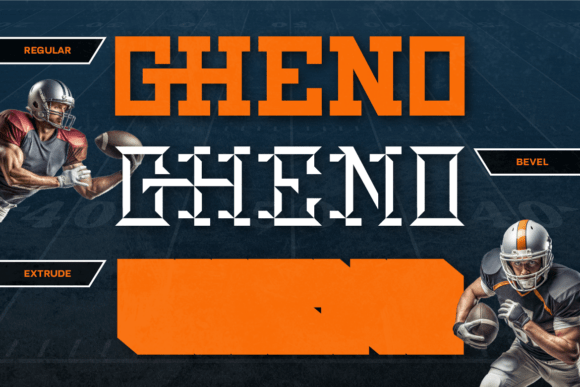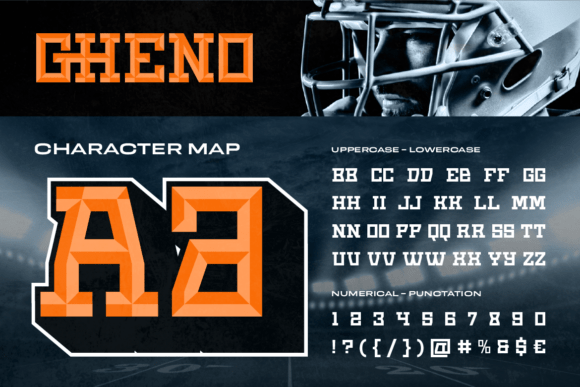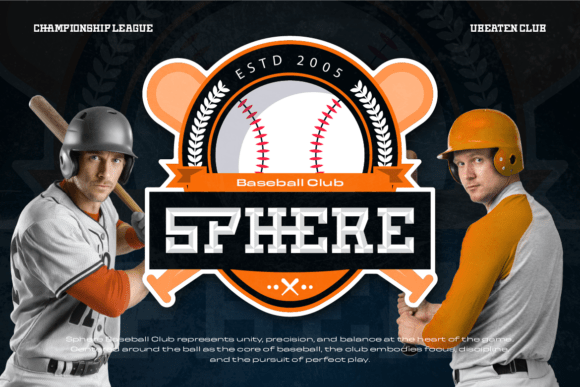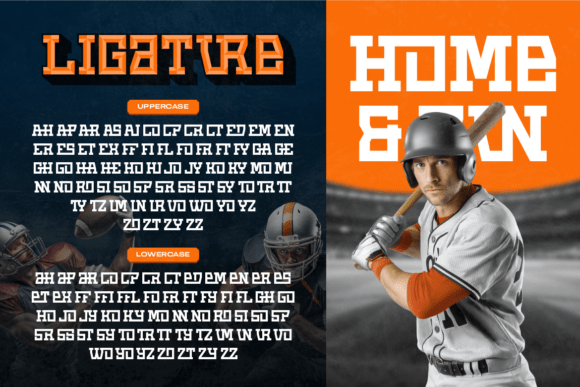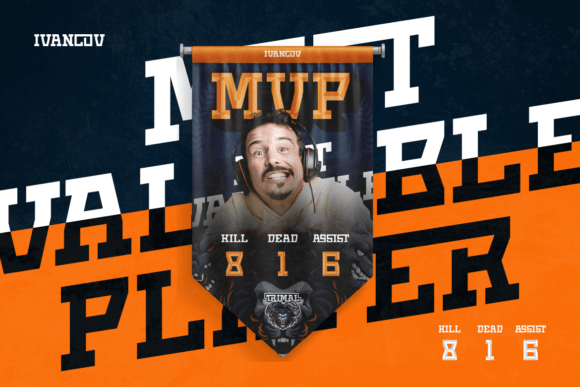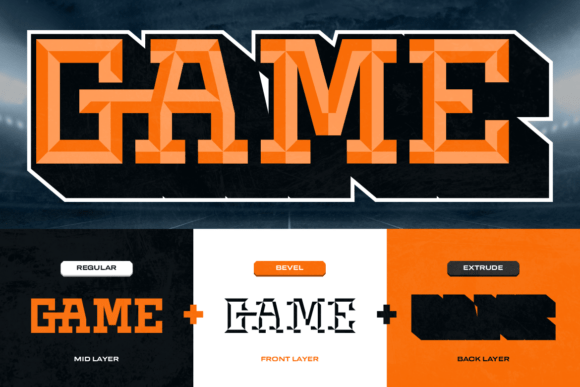
Introduction to Gheno Font
GHENO is a bold, layered sport slab font built to bring power, impact, and game-day energy into your designs.
Inspired by classic stadium typography and modern athletic branding, this font delivers strong block shapes with sharp slab details that instantly feel competitive and confident Designed with a layered system, GHENO gives you creative flexibility through Regular, Bevel, and Extrude styles.
Key Features of Gheno Font
Why Choose Gheno Font?